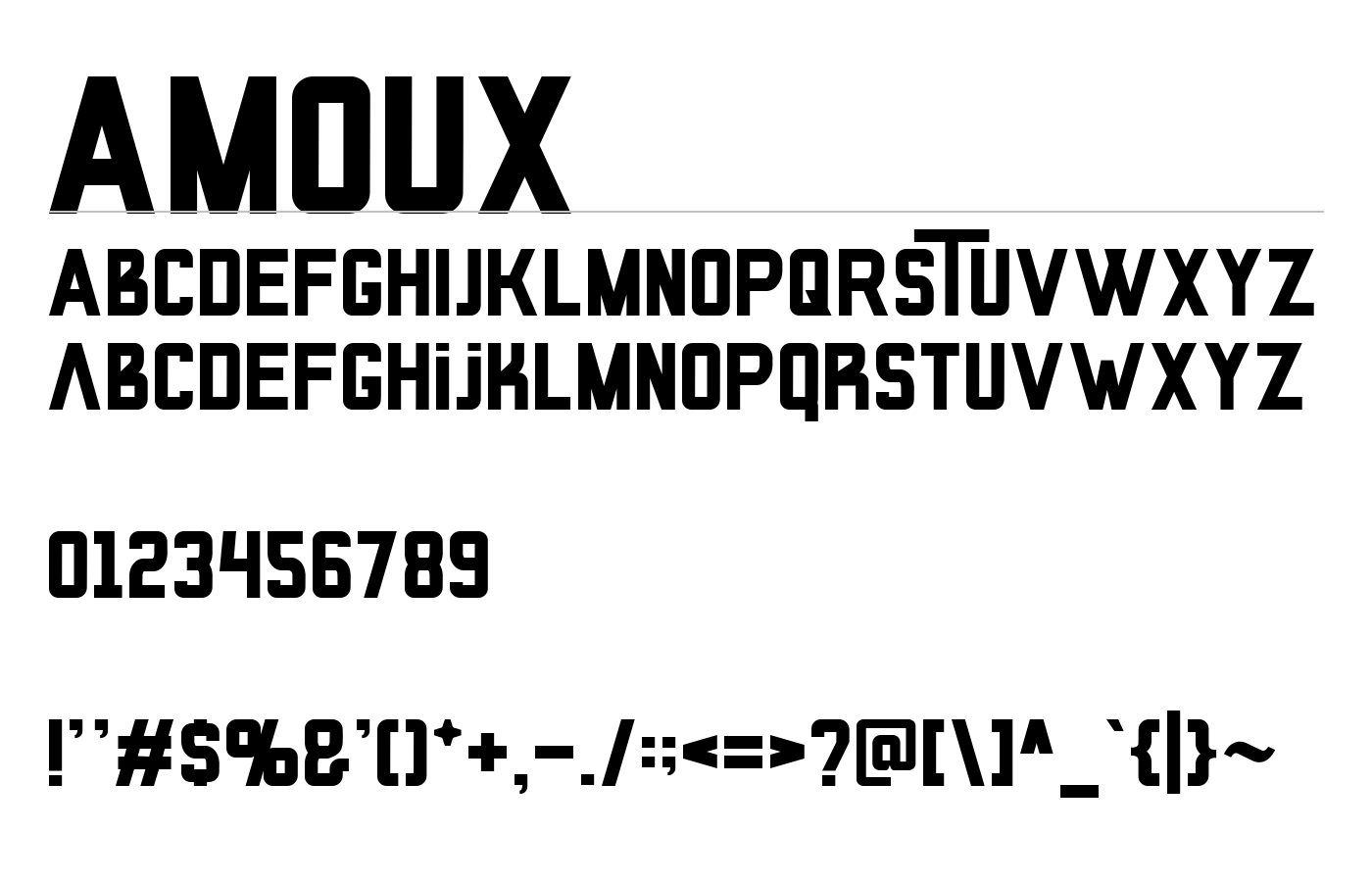
AMOUX is a bold, condensed sans-serif font with a strong, industrial feel. Its tall, uppercase letterforms feature sharp edges and a consistent stroke weight, creating a modern and assertive look ideal for headlines, branding, and display purposes where impact and clarity are essential. This typeface suits projects that need a confident and edgy style, such as sports logos, posters, or packaging designs.
AMOUX Font